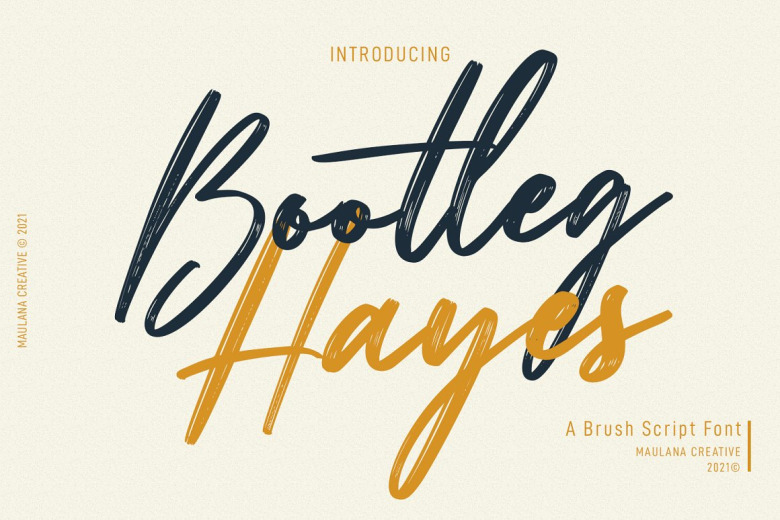
Bootleg Hayes Font
Bootleg Hayes is a metaphorical brush script font. Brush texture stroke, slanted and fun character with a bit of ligatures. For some extra creative labor. It has multilingual support, more than 100+ languages available.
Bootleg-Hayespriv21 Looks very well both in uppercase or lowercase for a kind of striking text, some design projects you need to highlight a few words and looks different…. Or simple if you want to use as paragraphs!!! Create a masterpiece with Bootleg Hayes.
Bootleg Hayes Brush Script Font